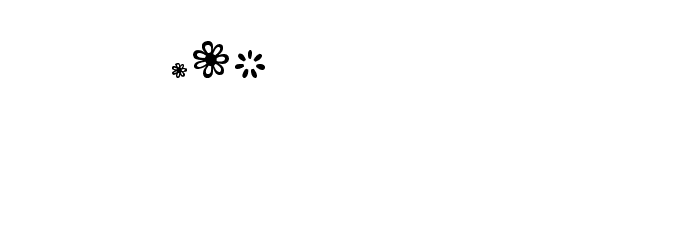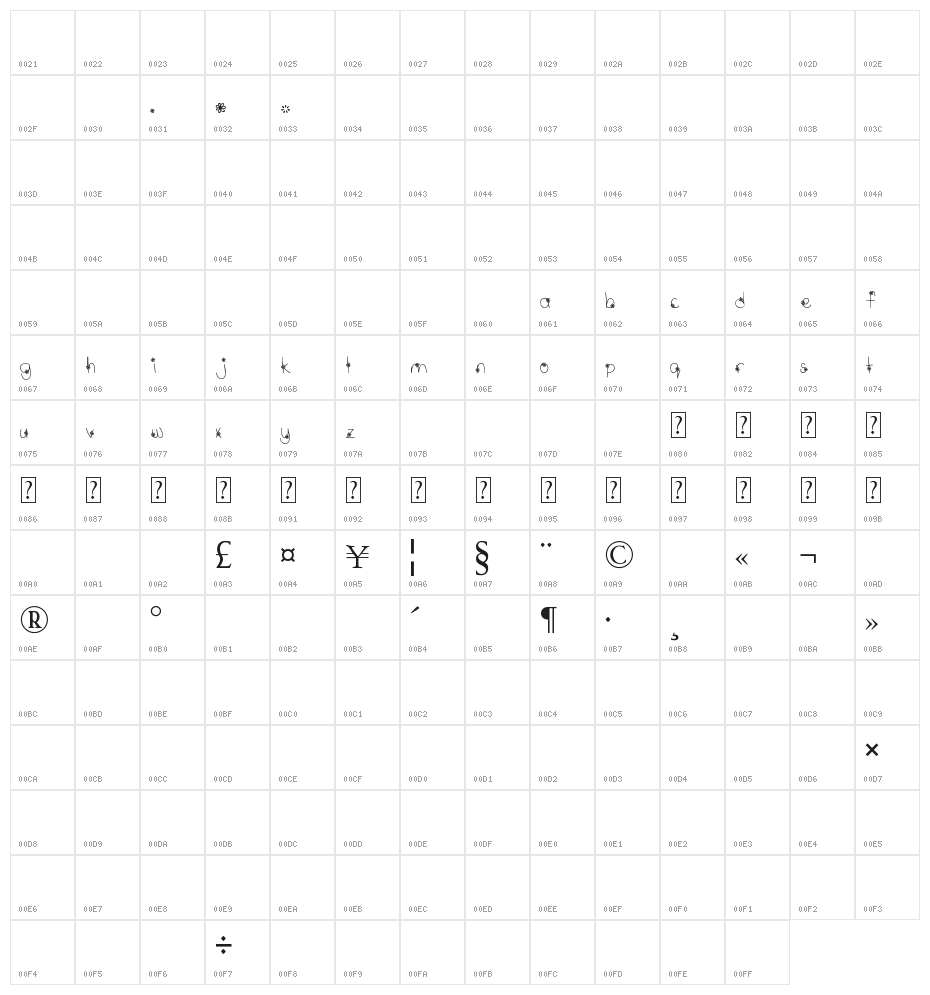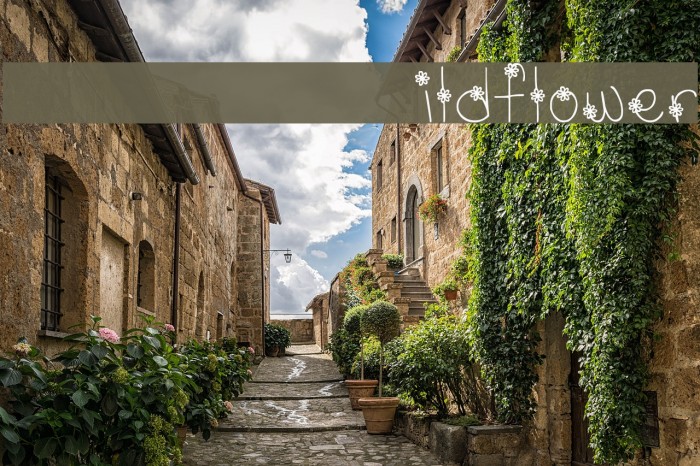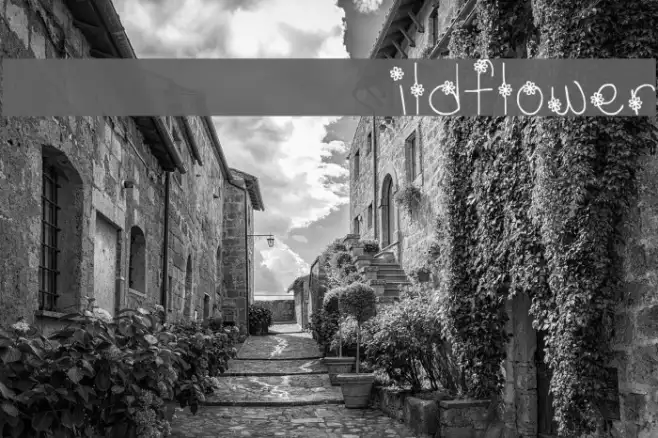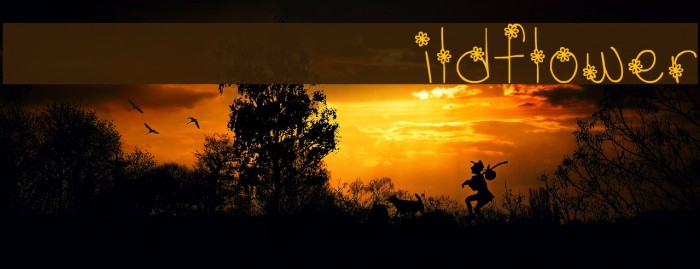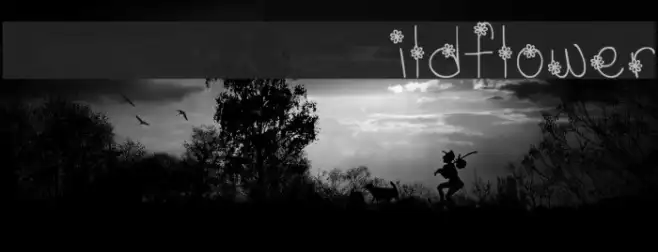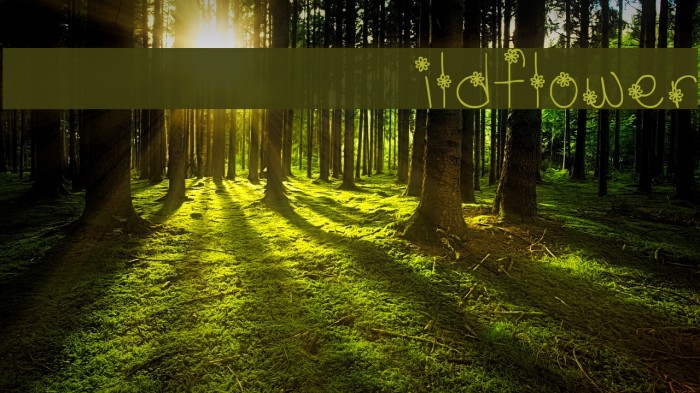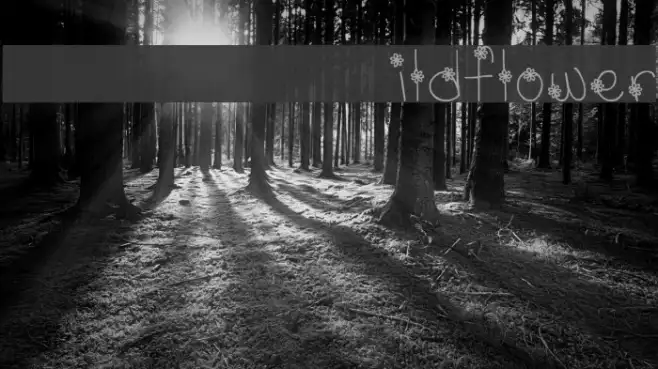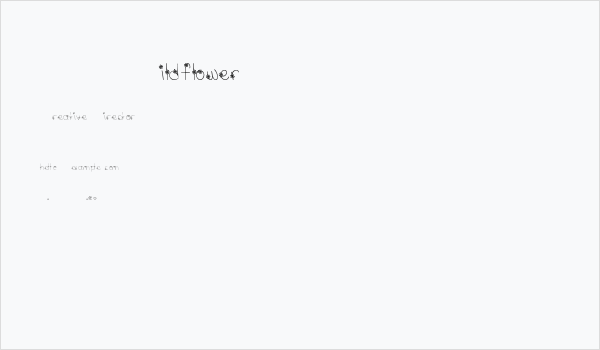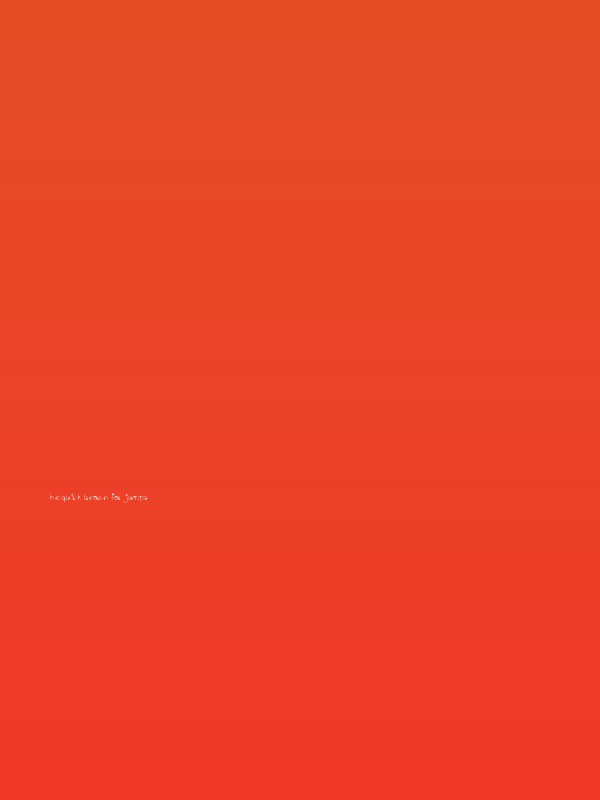
MTF Wildflower Font
MTF Wildflower Description
This whimsical and decorative font features playful floral embellishments integrated into each character, creating a lively and charming appearance. The letters are thin and elongated, with delicate curves that enhance the font's organic feel. Each character is adorned with small flower motifs, adding a touch of nature-inspired elegance. The overall design is light-hearted and artistic, making it ideal for projects that require a touch of creativity and fun. The font's unique style is perfect for adding a personal and artistic flair to any design.
| Proposed Projects | Ideal for greeting cards, invitations, children's book covers, and creative branding projects. |